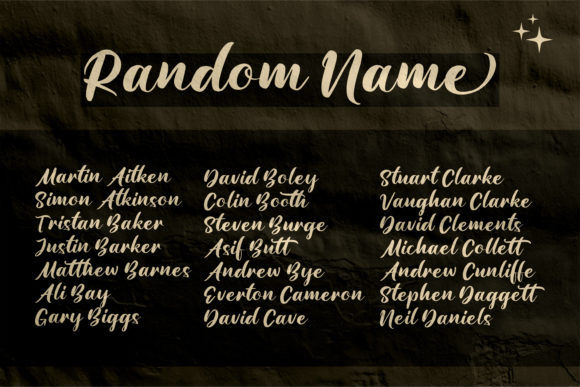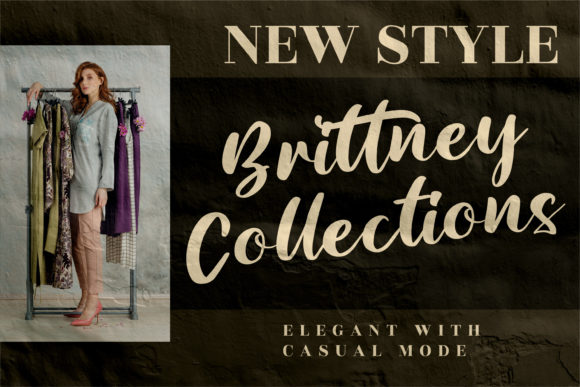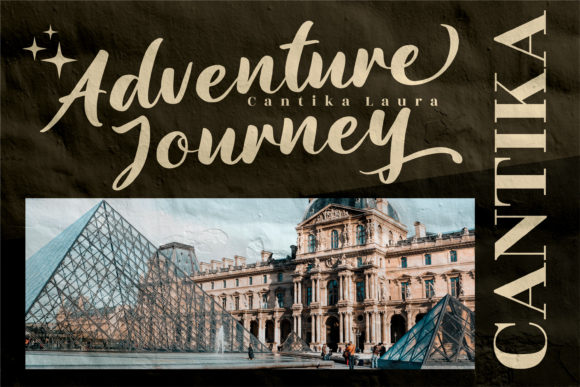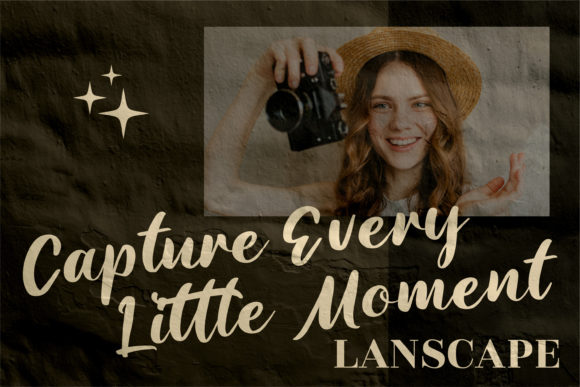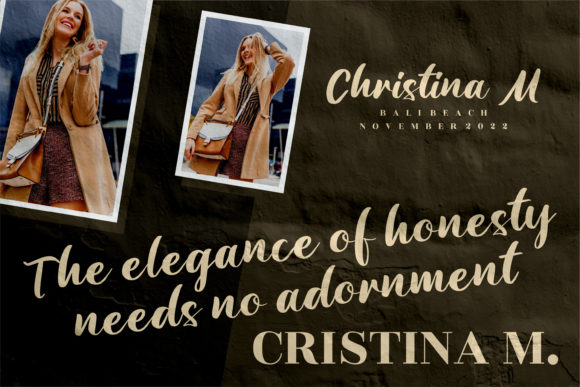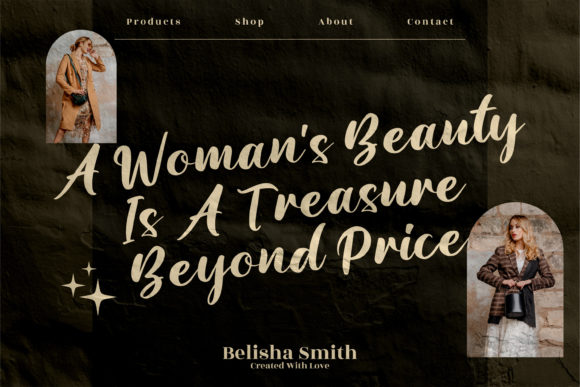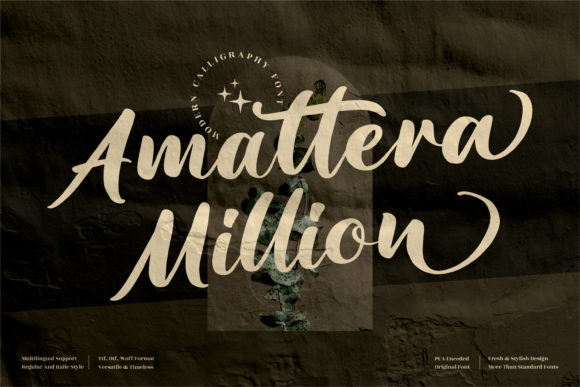
The Elusive Perfect Font: My Encounter with Amattera Million
I’ll never forget the frustration of working on a design project, hours spent scrolling through font libraries, and yet, none seemed quite right. The client wanted elegance, class, and a touch of whimsy – a tall order! That’s when I stumbled upon Amattera Million, a lovely and delicate script font that exuded the sophistication I was searching for. In this article, I’ll share my experience with this beautiful font, its features, and how to make the most of it in your designs.
An Honest Review of Amattera Million
Amattera Million has been a game-changer for my designs, and here’s what I love about it:
- ✨ Elegant and delicate script style that’s perfect for adding a touch of sophistication to your designs
- ✅ PUA encoded for easy access to beautiful glyphs and swashes
- 💫 Highly versatile and can be used for a wide range of design projects, from wedding invitations to branding and packaging
- 🌈 Beautifully crafted with attention to detail, making it perfect for designs that require a high level of elegance
While Amattera Million is an excellent font, there are a few quirks to be aware of:
- 🤔 Some users may find the font a bit too delicate for certain design projects, such as posters or headlines
- ⚠️ As with any script font, it may not be suitable for body text or long blocks of text
The Story Behind Amattera Million
Amattera Million was crafted with love and care by a team of skilled typographers. The font’s design inspiration comes from classic calligraphy and elegant script fonts. The goal was to create a font that exudes elegance and class, while also being versatile and easy to use.
| What is Amattera Million? | Amattera Million is a lovely and delicate script font that exudes elegance and class. |
| Is Amattera Million PUA encoded? | Yes, Amattera Million is PUA encoded, making it easy to access beautiful glyphs and swashes. |
| Is Amattera Million suitable for body text? | No, Amattera Million is a script font and is best used for headlines, titles, and short blocks of text. |